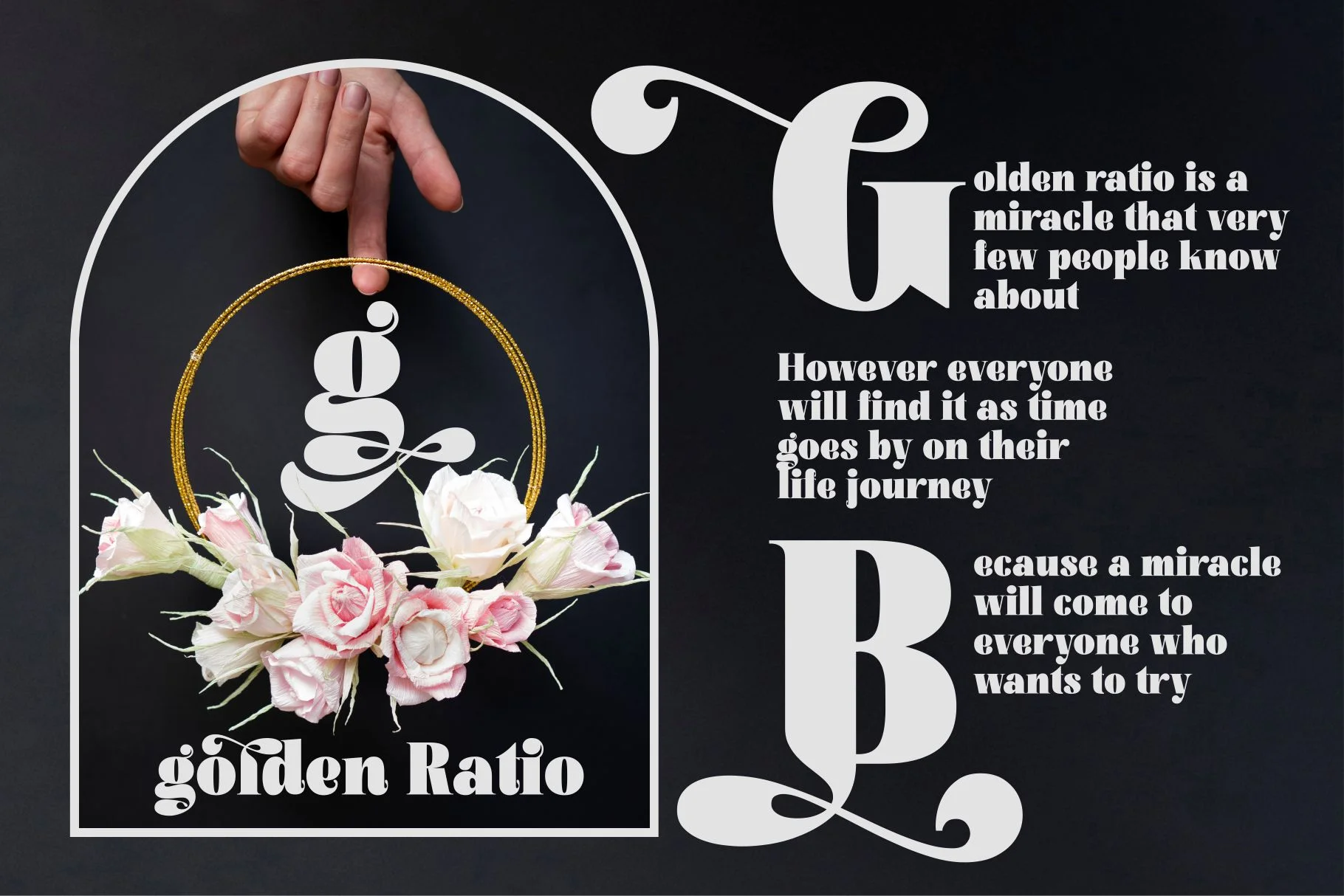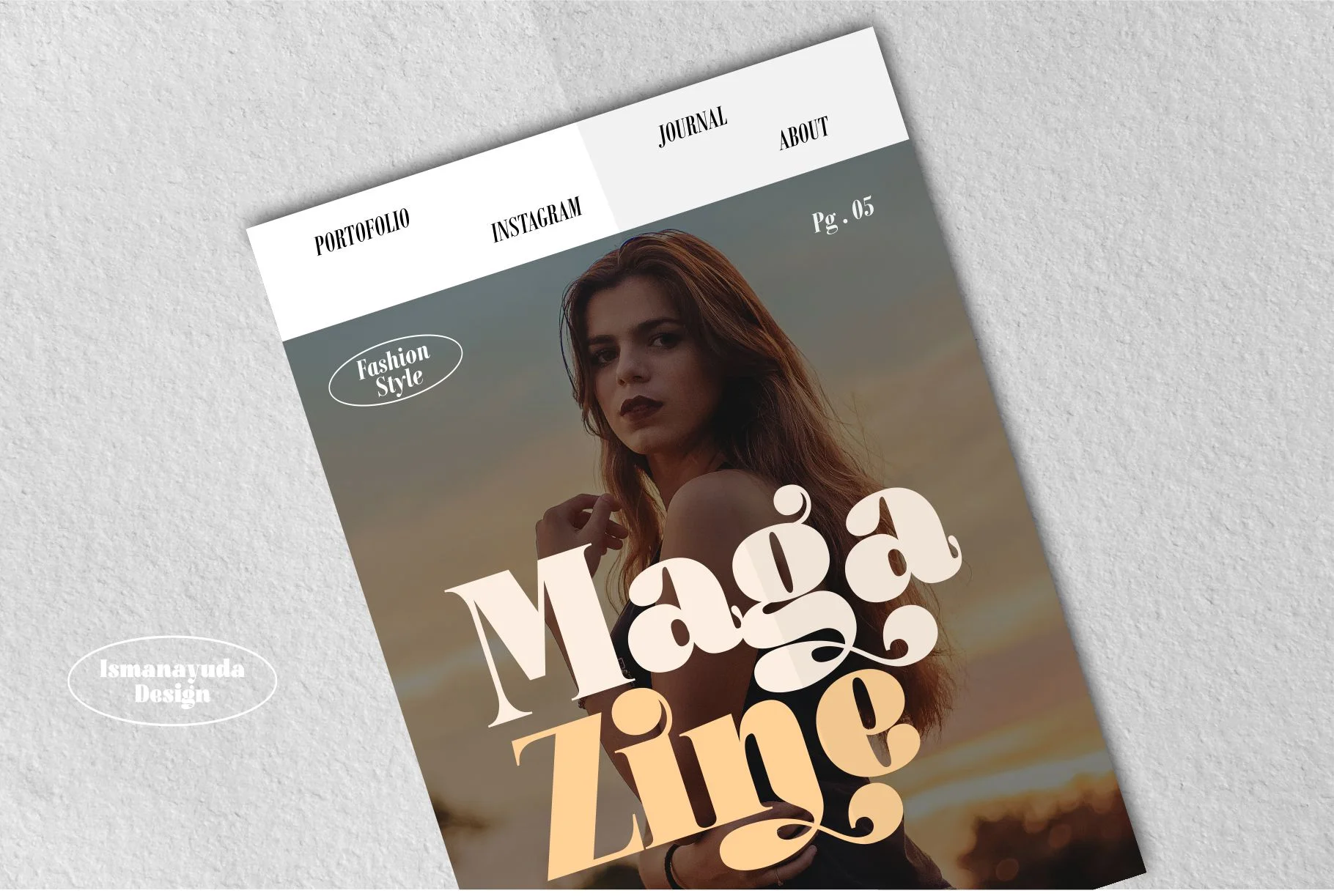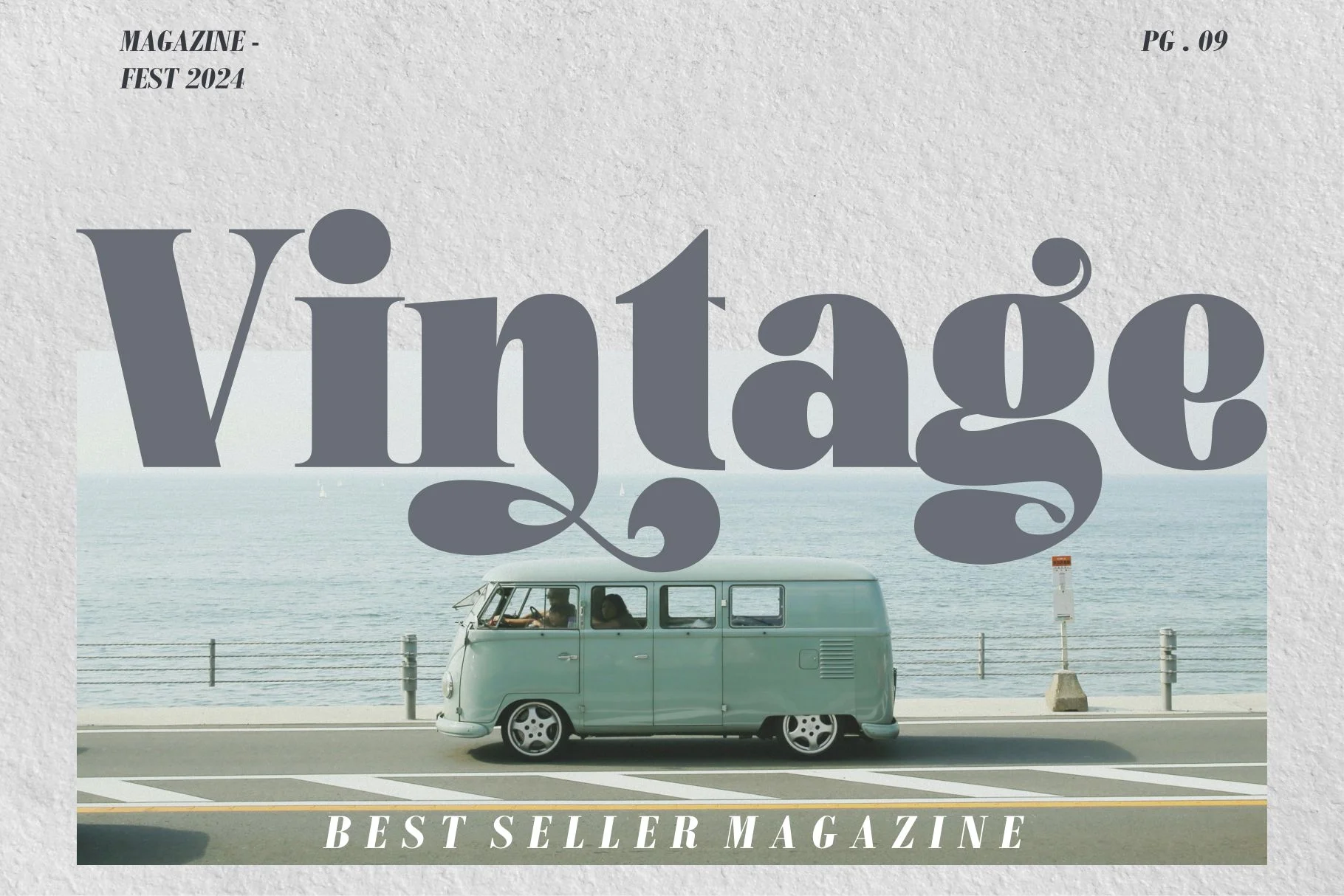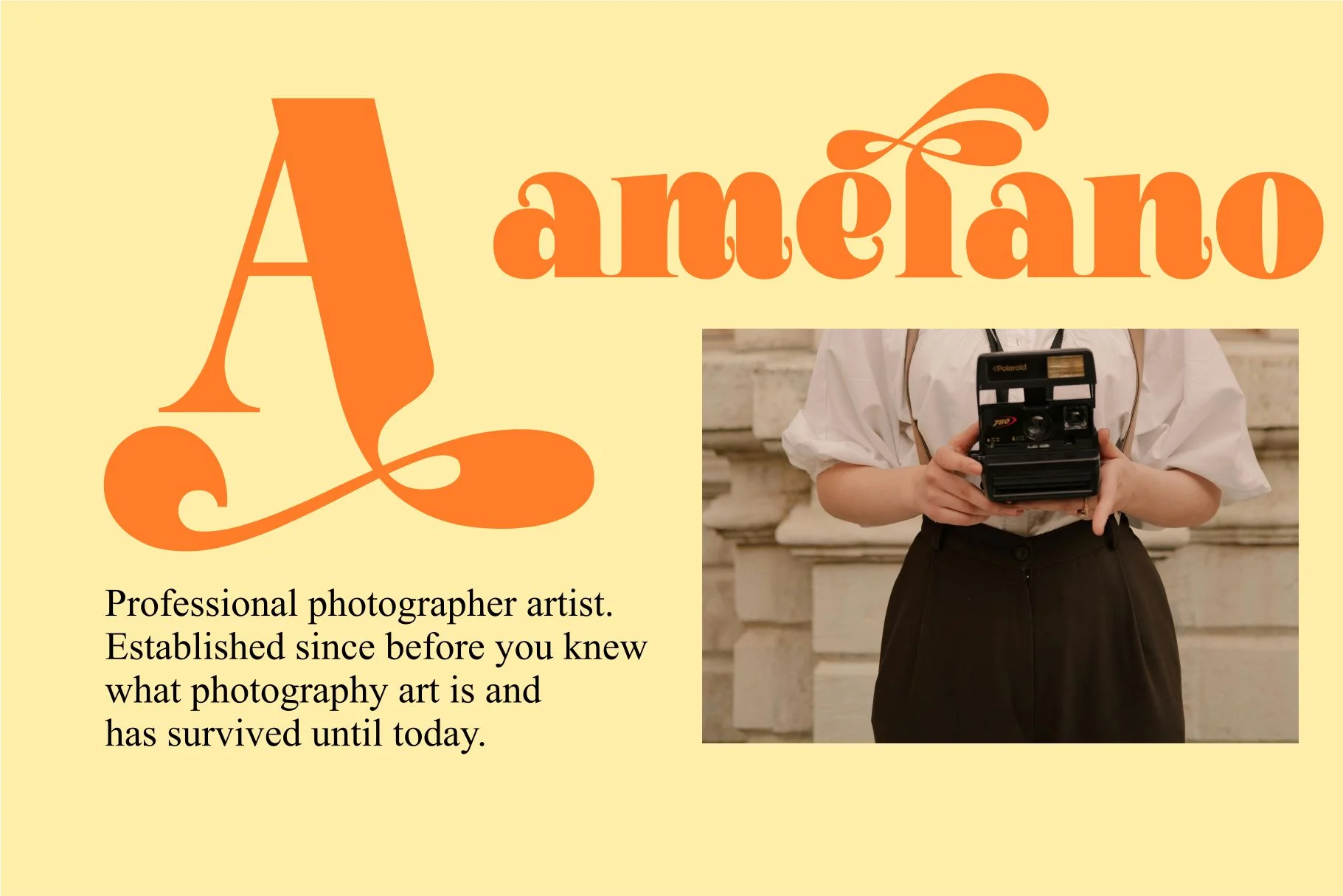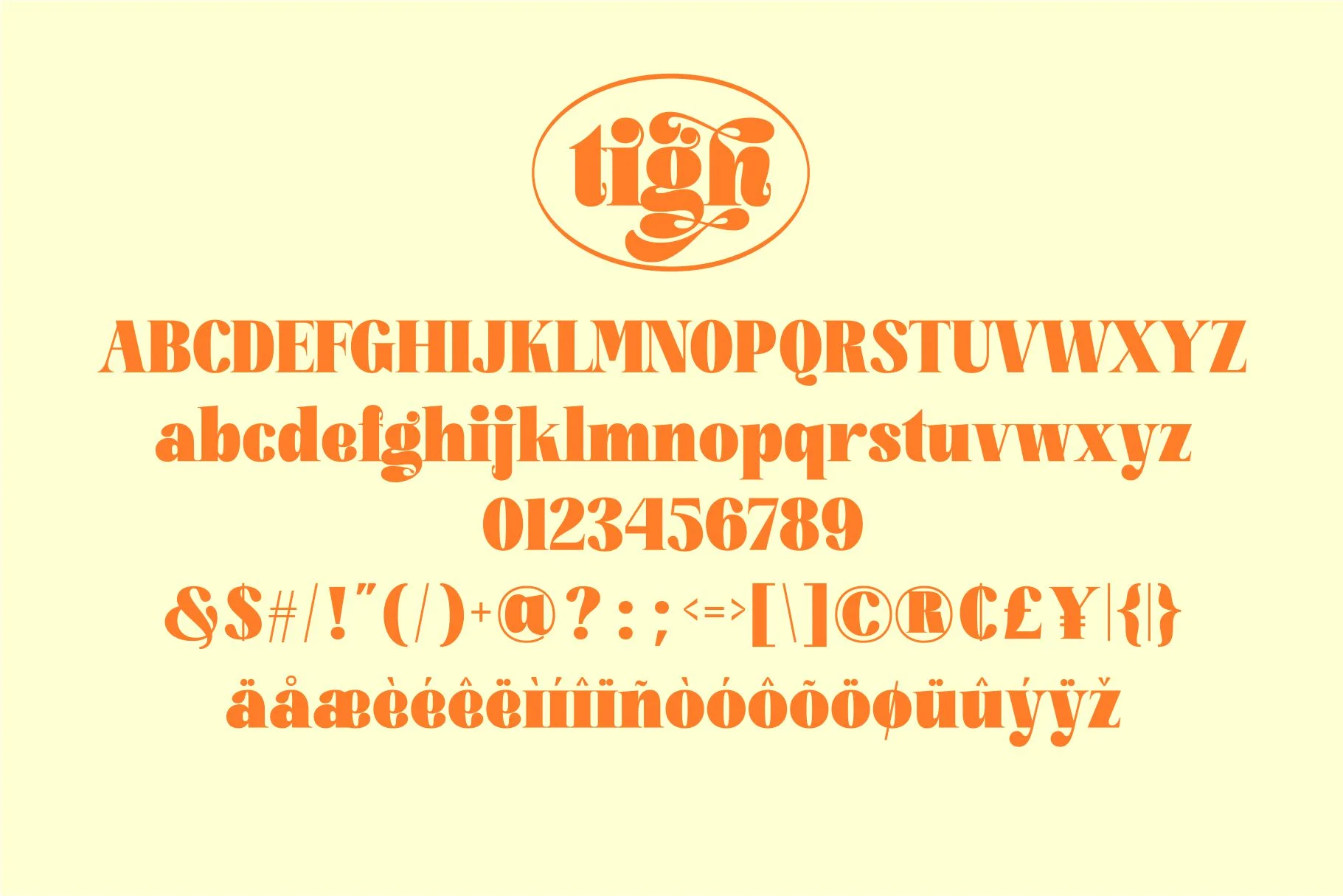
Tigh
Tigh is a simple yet distinctive font that captures a nostalgic vintage aesthetic. It is characterized by its bold, high-contrast letterforms, which feature thick vertical strokes paired with elegant, thin curves. A standout feature of this typeface is its collection of unique swashes and flowing stylistic elements that give the characters a sense of movement and "funny flow". This decorative display font is highly versatile and is specifically tailored for high-impact visual projects such as vintage logos, apparel branding, photography watermarks, and retro-themed posters.